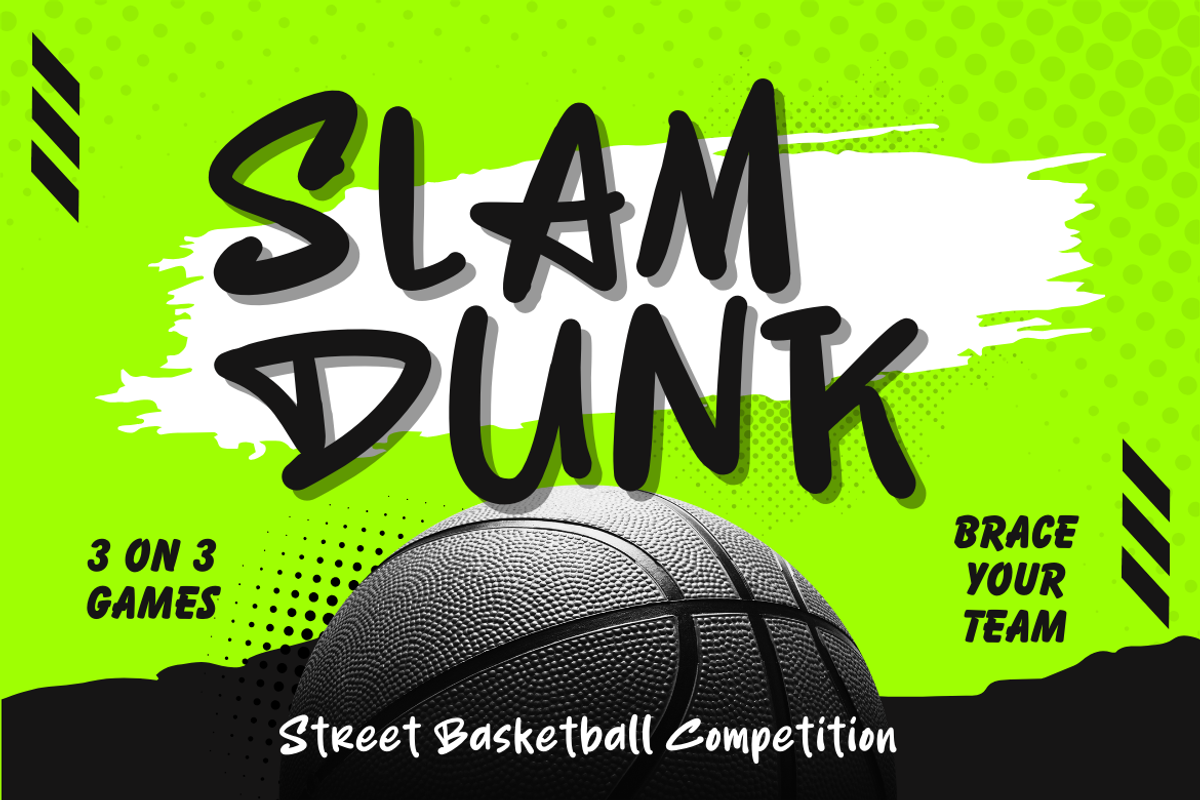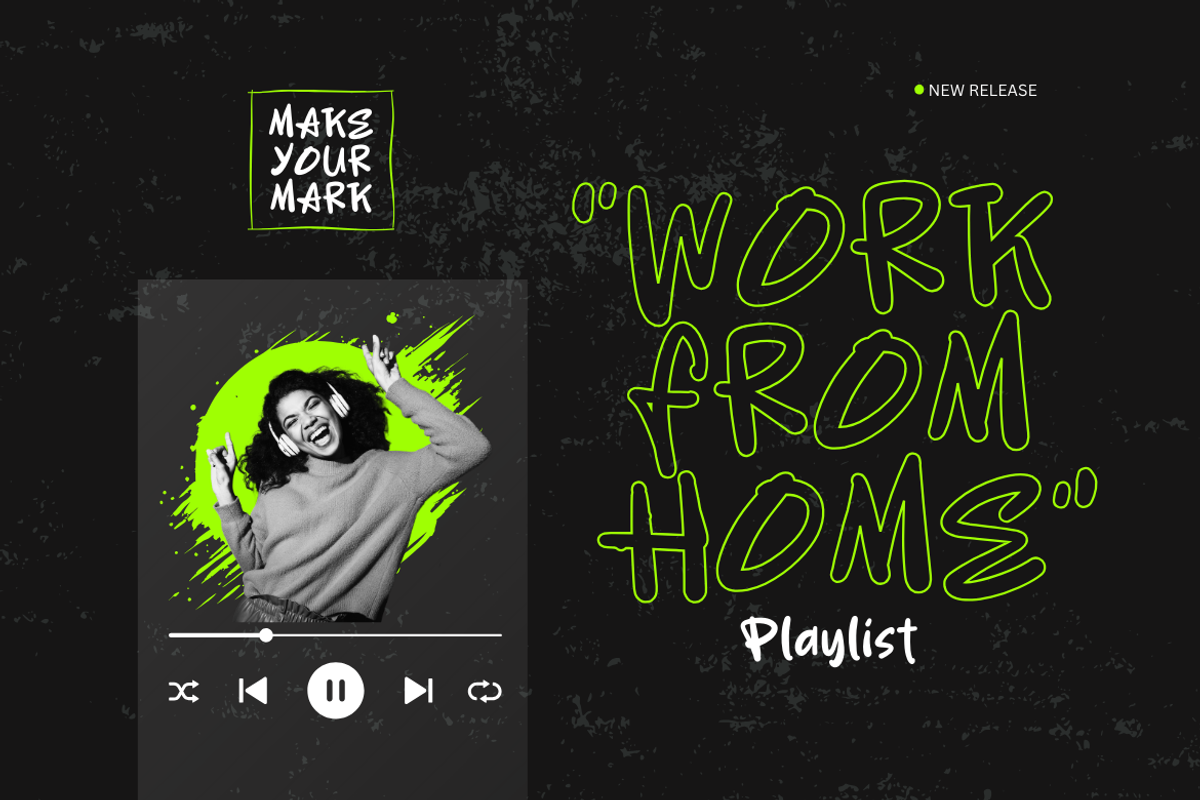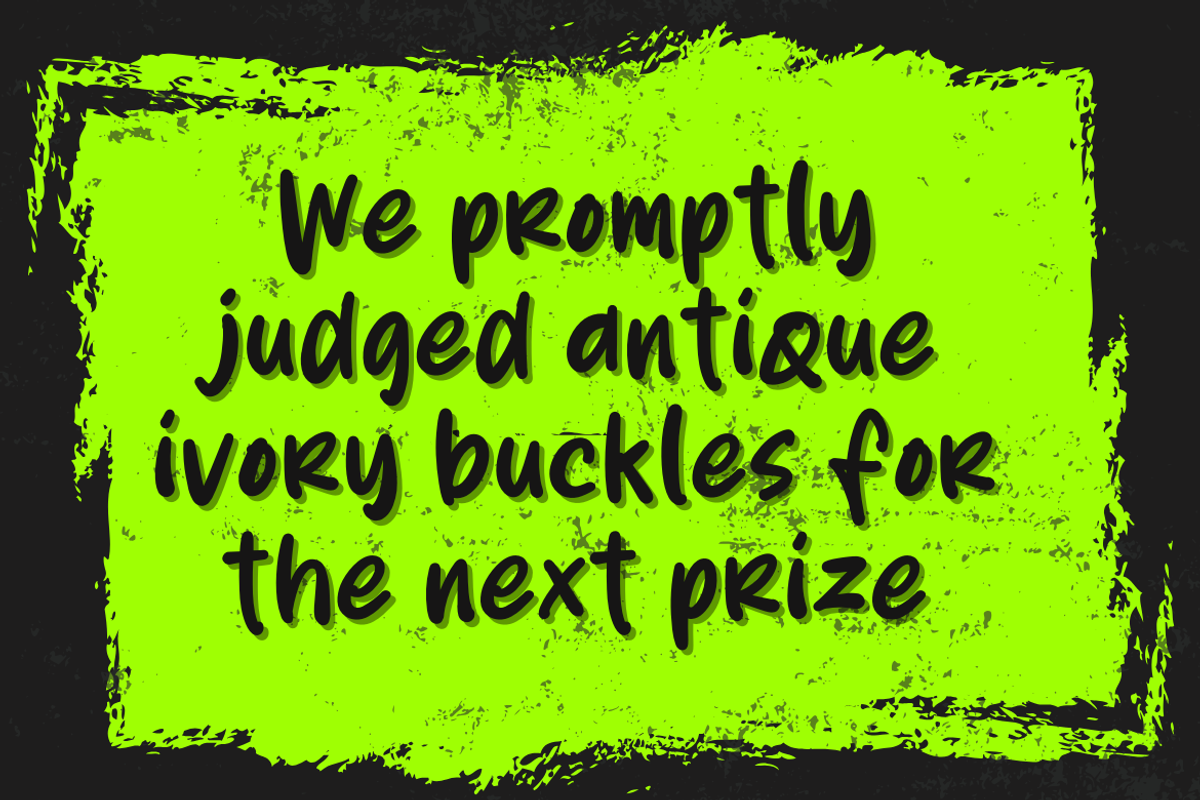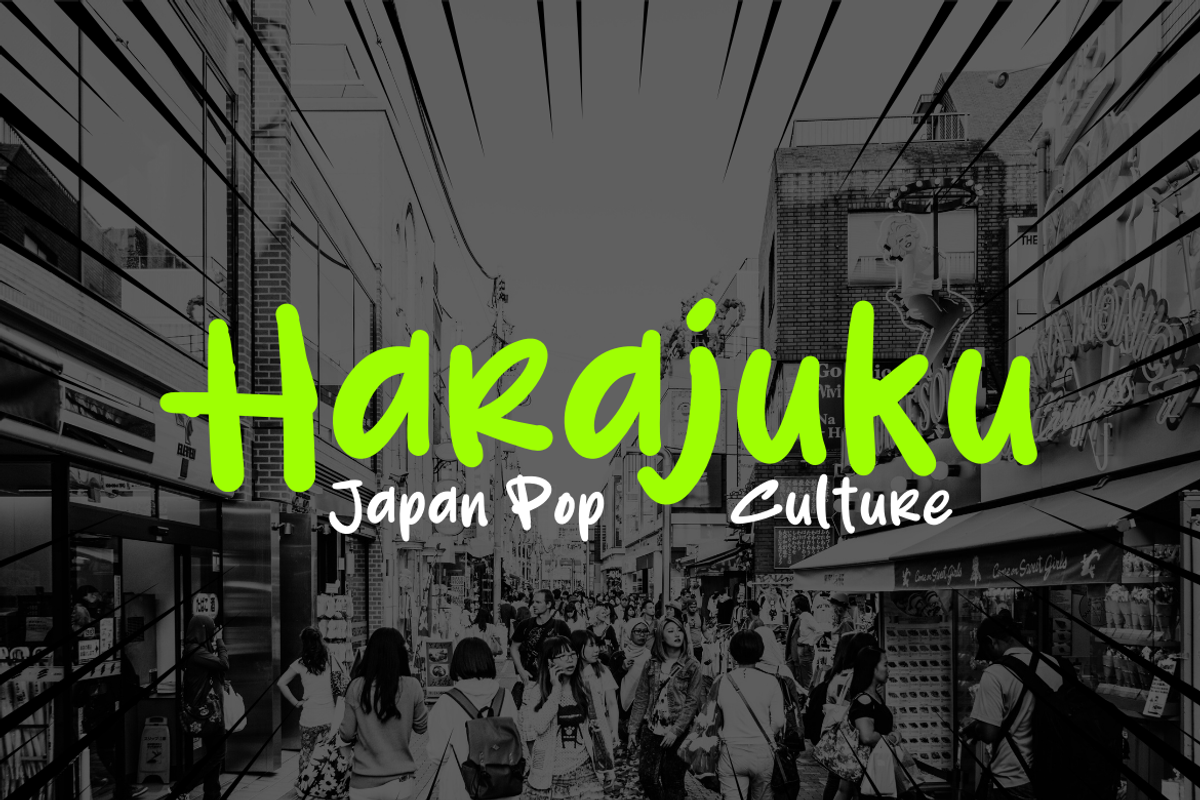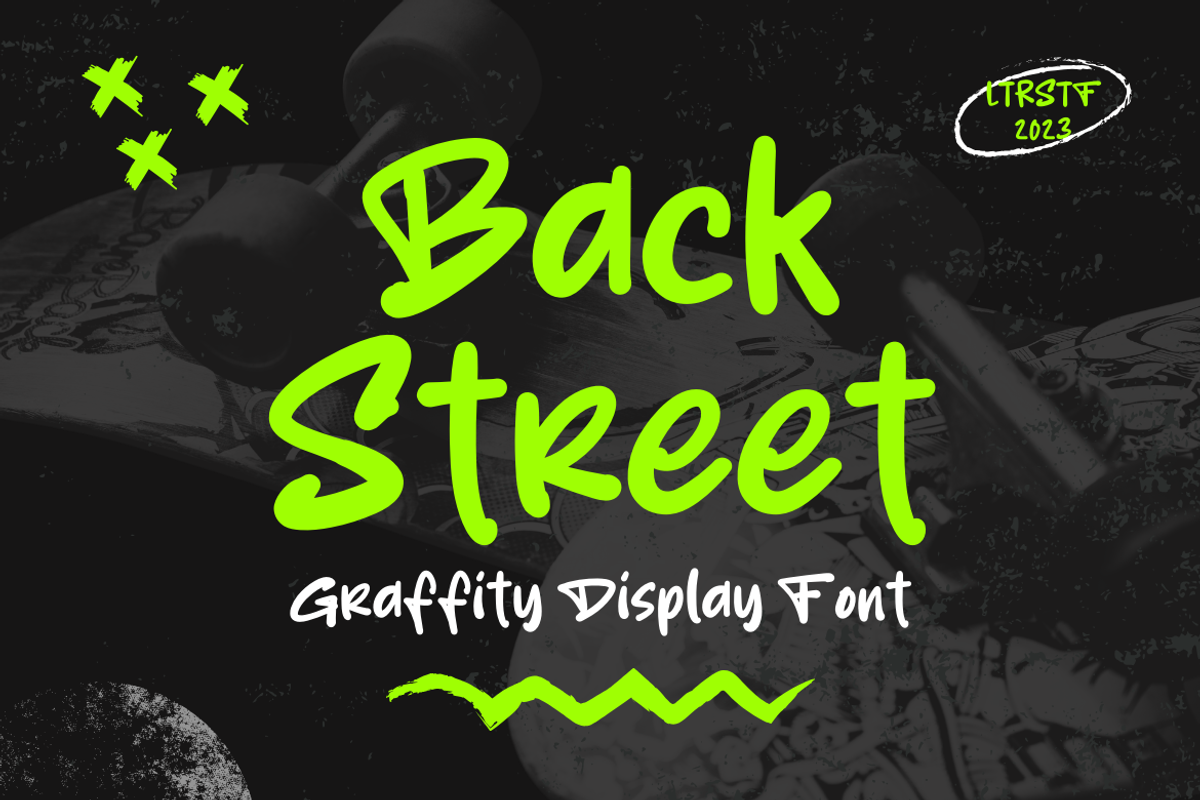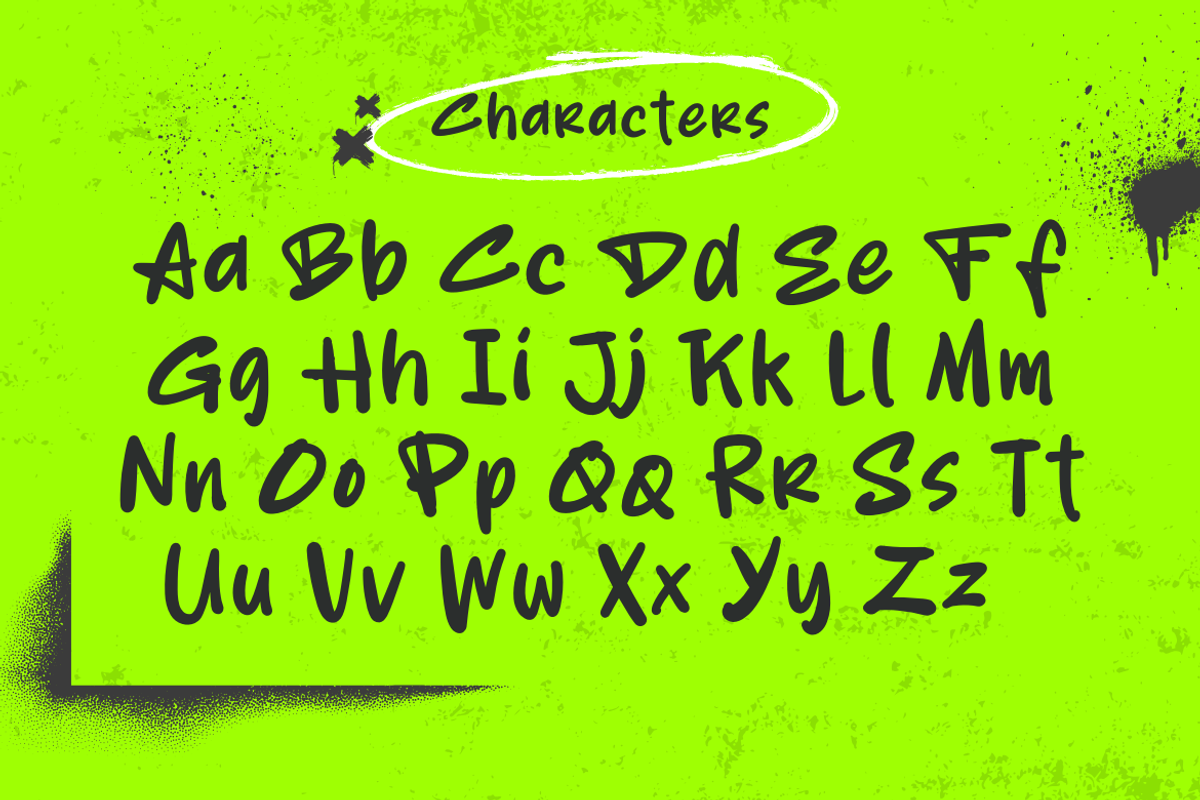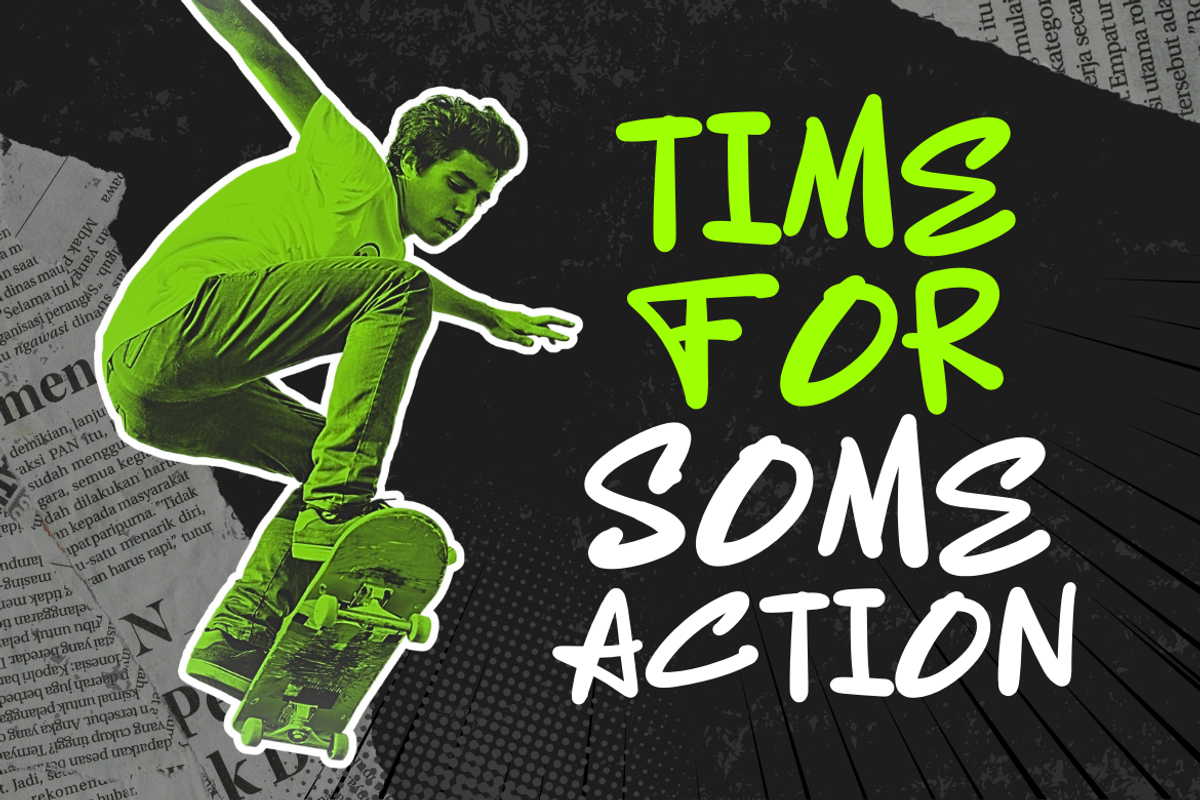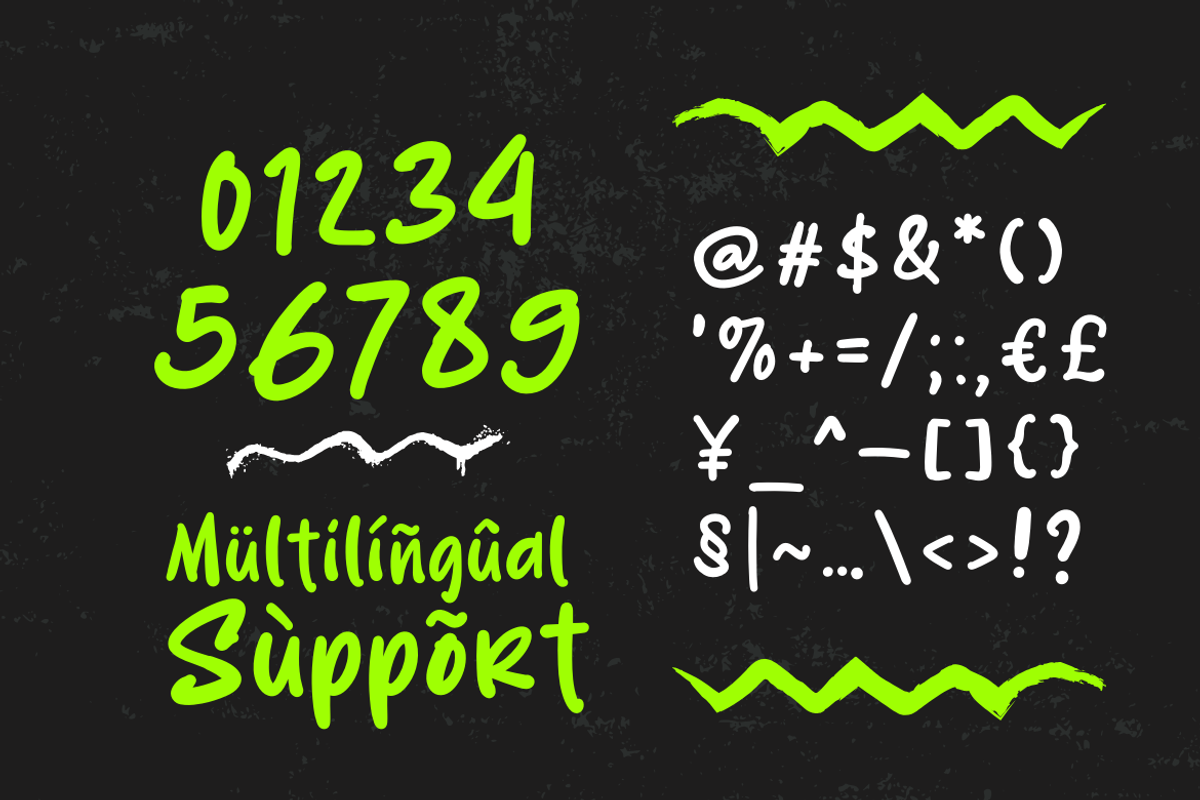
Backstreet Font
Introducing "Backstreet" Font: A Fusion of Handwritten Grit and Urban Chic! Infused with Street, Graffiti, Marker, Brush, and Modern elements, this font is the epitome of urban cool. Perfect for sporty vibes, skateboard aesthetics, and modern displays, Backstreet is your go-to for an edgy, street-smart design revolution
- Numeral and punctuation
Revolutionize your design journey with Backstreet Font – where the streets come alive in every character